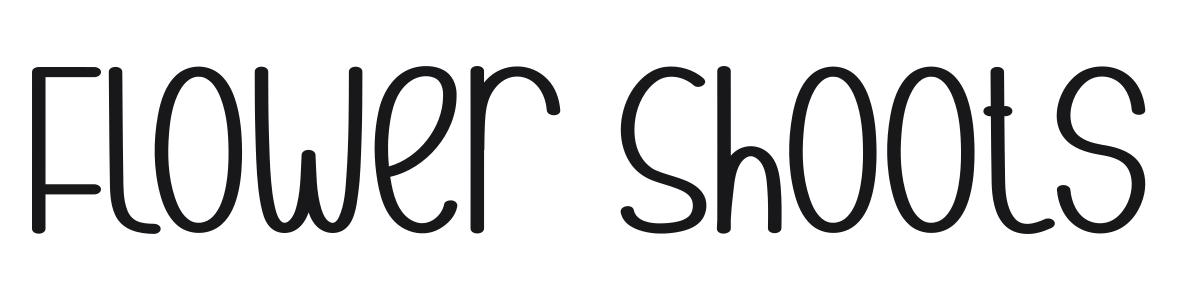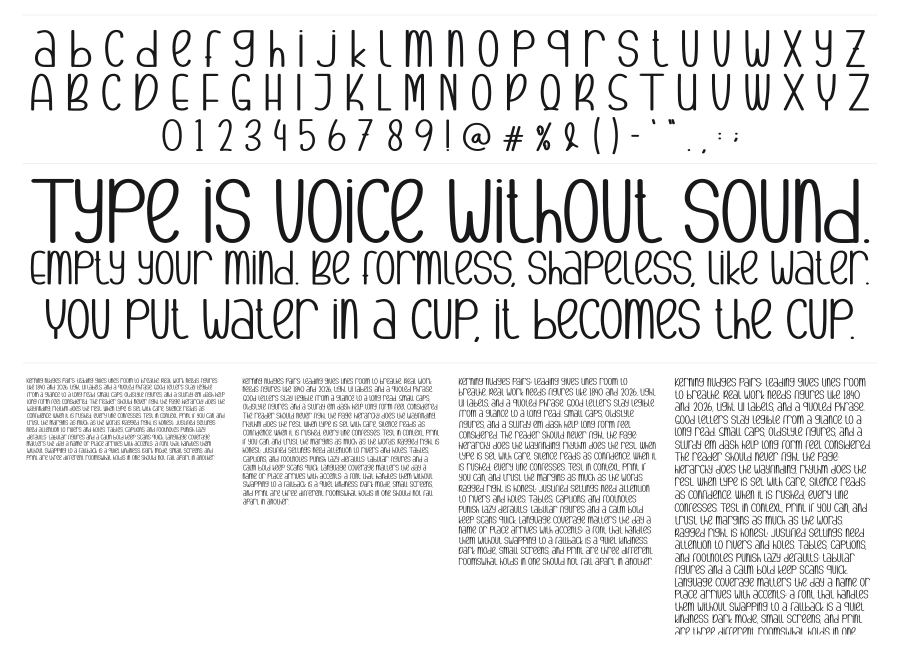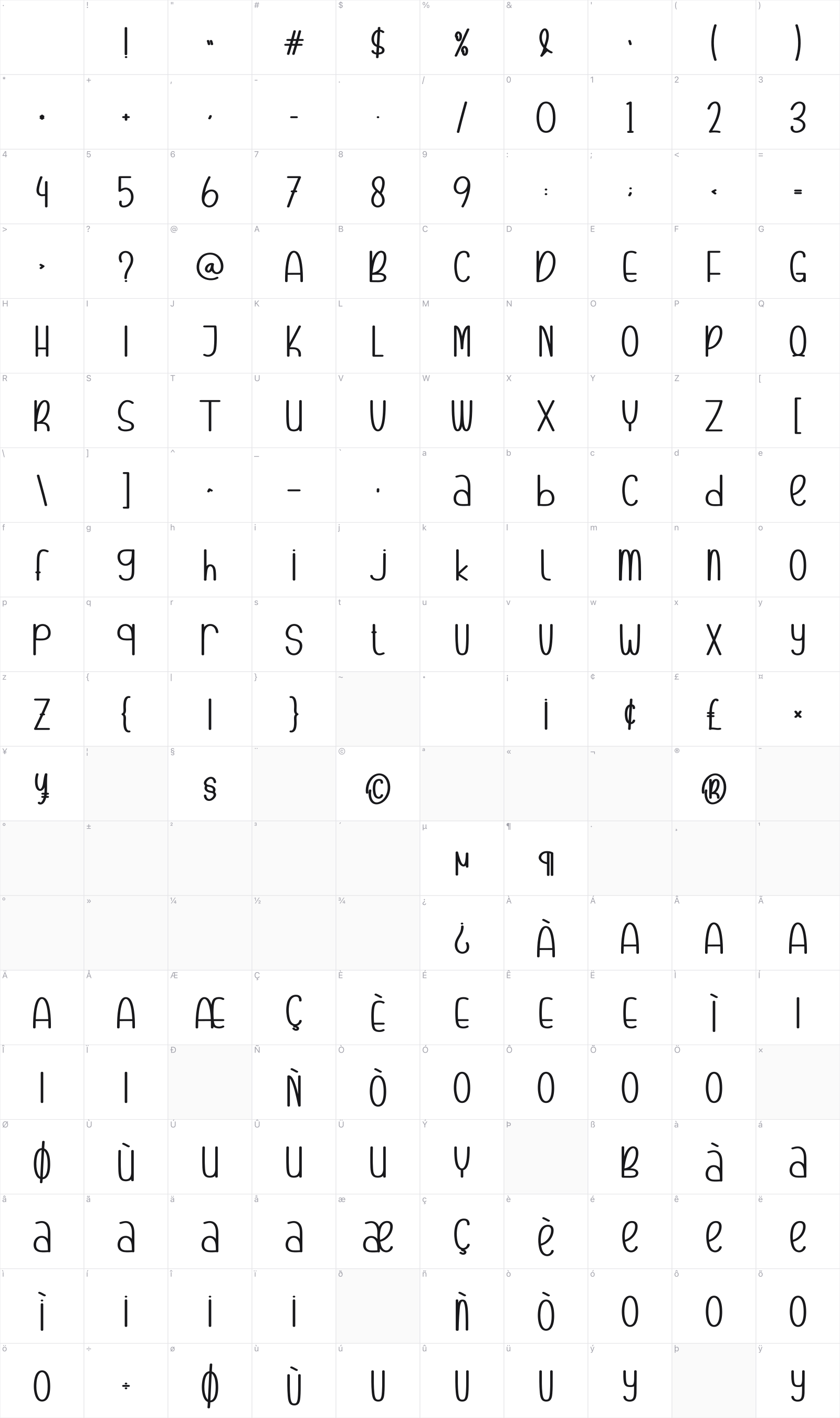
Flower Shoots
Flower Shoots is a sweet upright handwritten display font with tall, rounded characters and softly tapered stroke endings. The clean monoweight construction keeps it tidy while the informal hand-drawn rhythm gives it warmth and personality. Works across wedding stationery, greeting cards, branding, and any project that benefits from a light, cheerful touch.